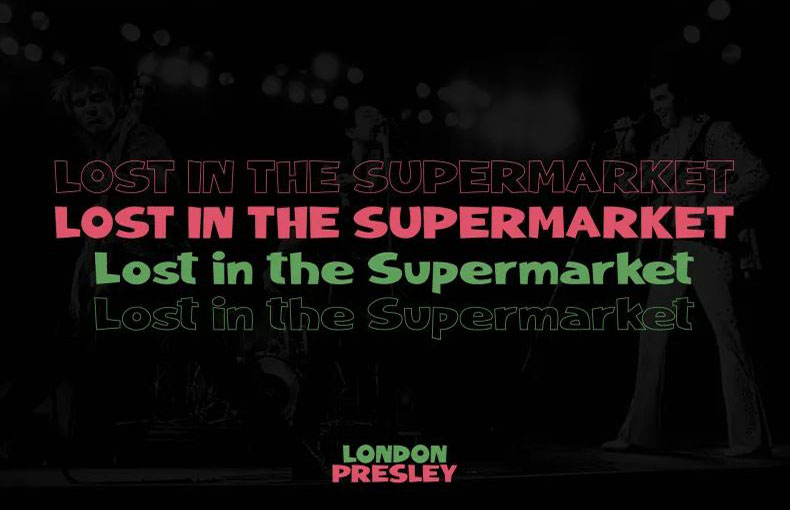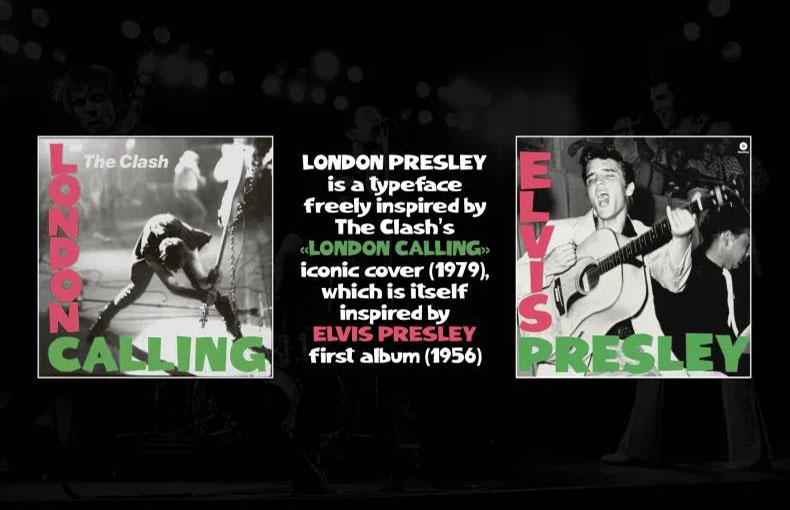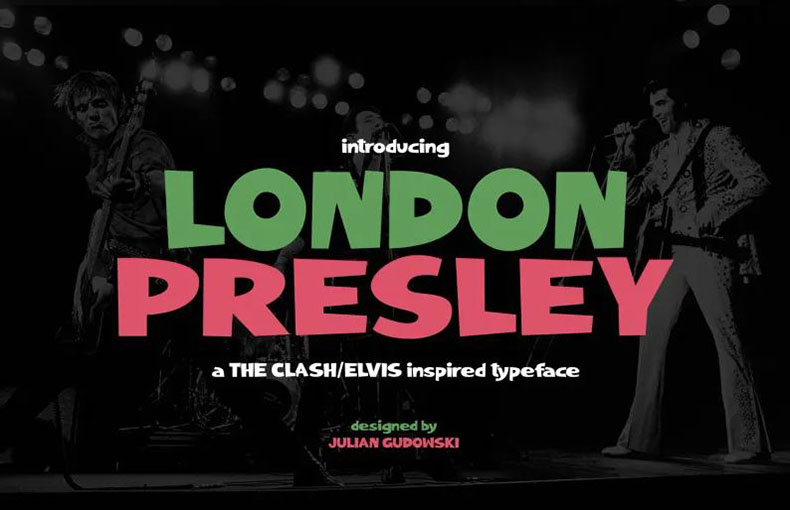
London Presley Font is a display typeface that was designed by Julian Gudowski. It features highly legible lettering and angular shapes to create an impactful, modern aesthetic.
It is inspired by the Clash’s famous cover of “London Calling” (1979), itself inspired by Elvis Presley’s first album (1956).
The designer made it in a noticeable way with a rocking appearance. This is because the texture is very bold in some areas and moderately bold in others.
London Presley typeface comes in a single style that contains 265 glyphs and 4 ligatures. This font also supports 76 multi-languages.
This font style is perfect for creating designs for wall murals, advertisements, home decor, e-book covers, social media banners, and other similar projects.
It is also a good choice for creating letterheads, social media posters, banners, headers, title designs, and a variety of product packaging.